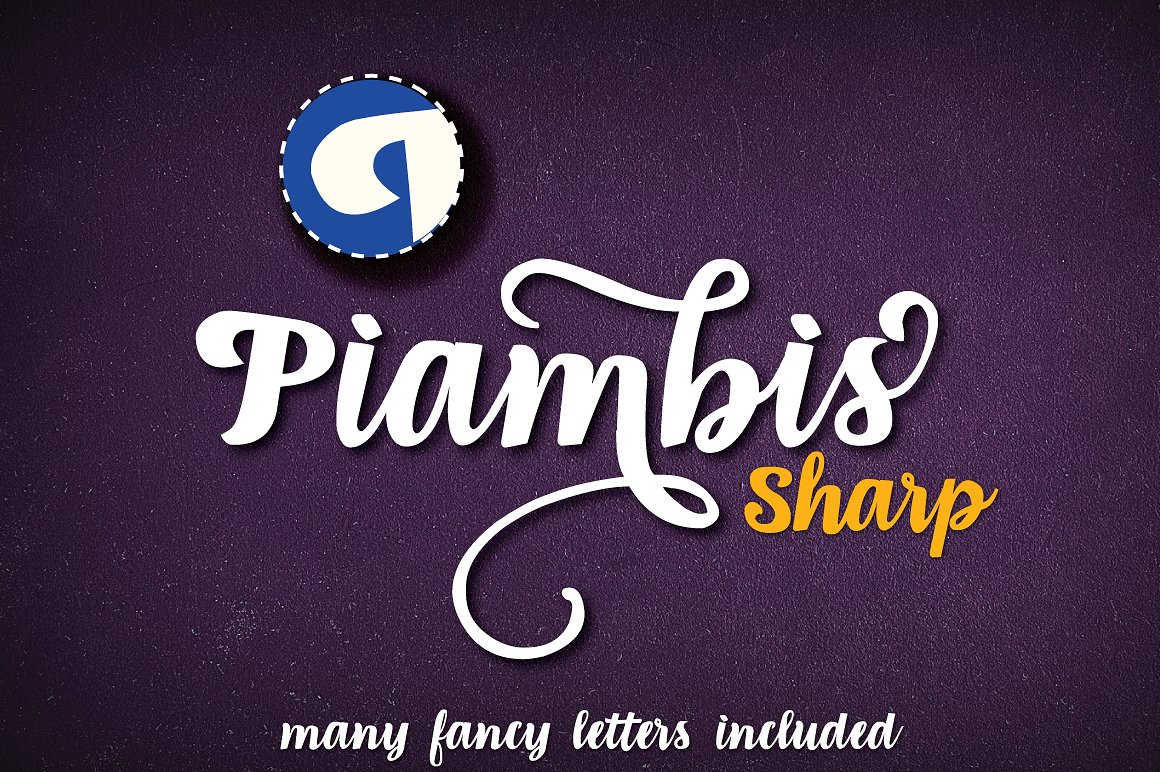
Piambis Sharp open type font
Piambis Round is handwritten font that boasts great variety of glyphs – many of which are fancy alternates for standard letters (shown in preview box below).